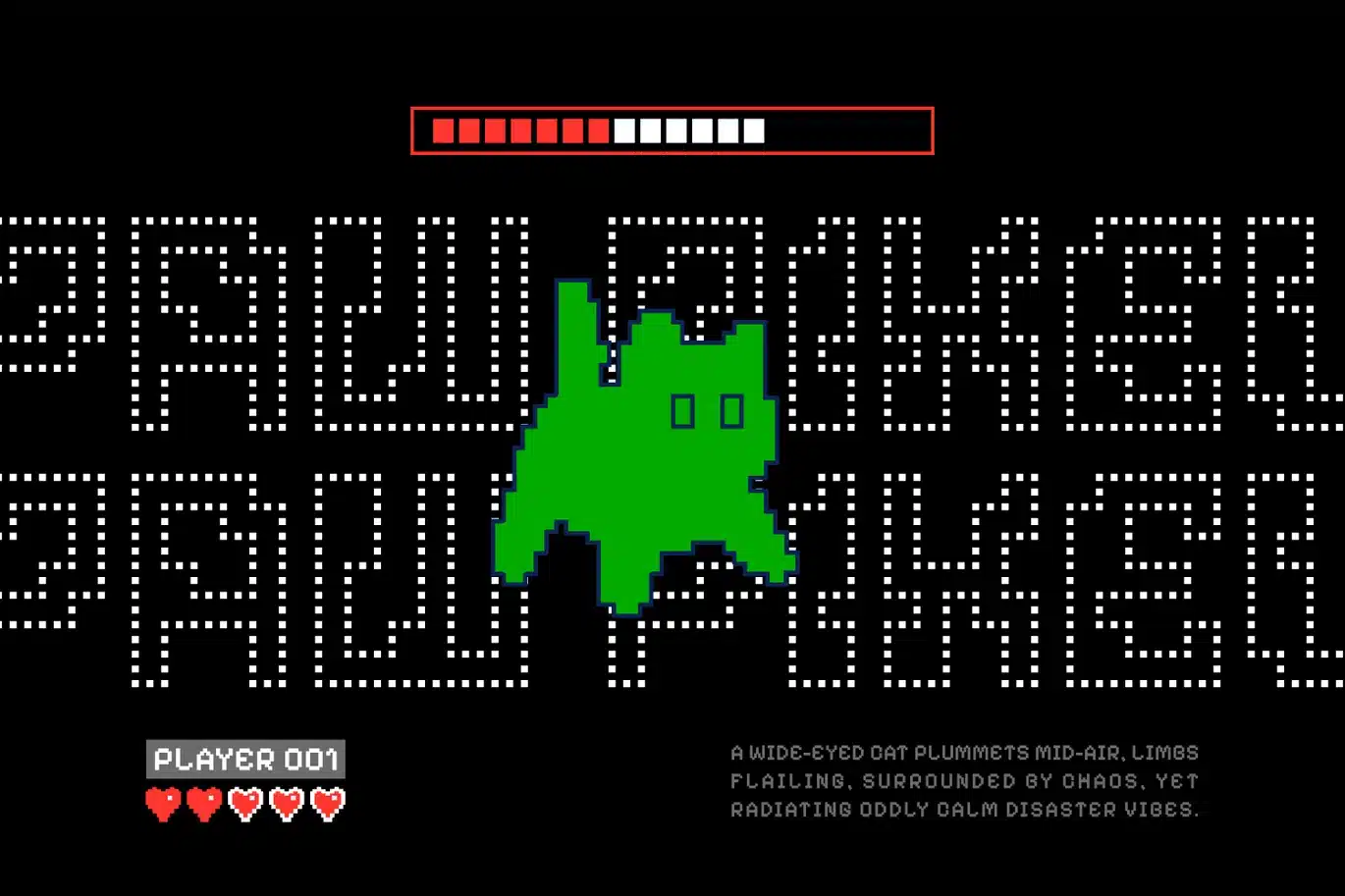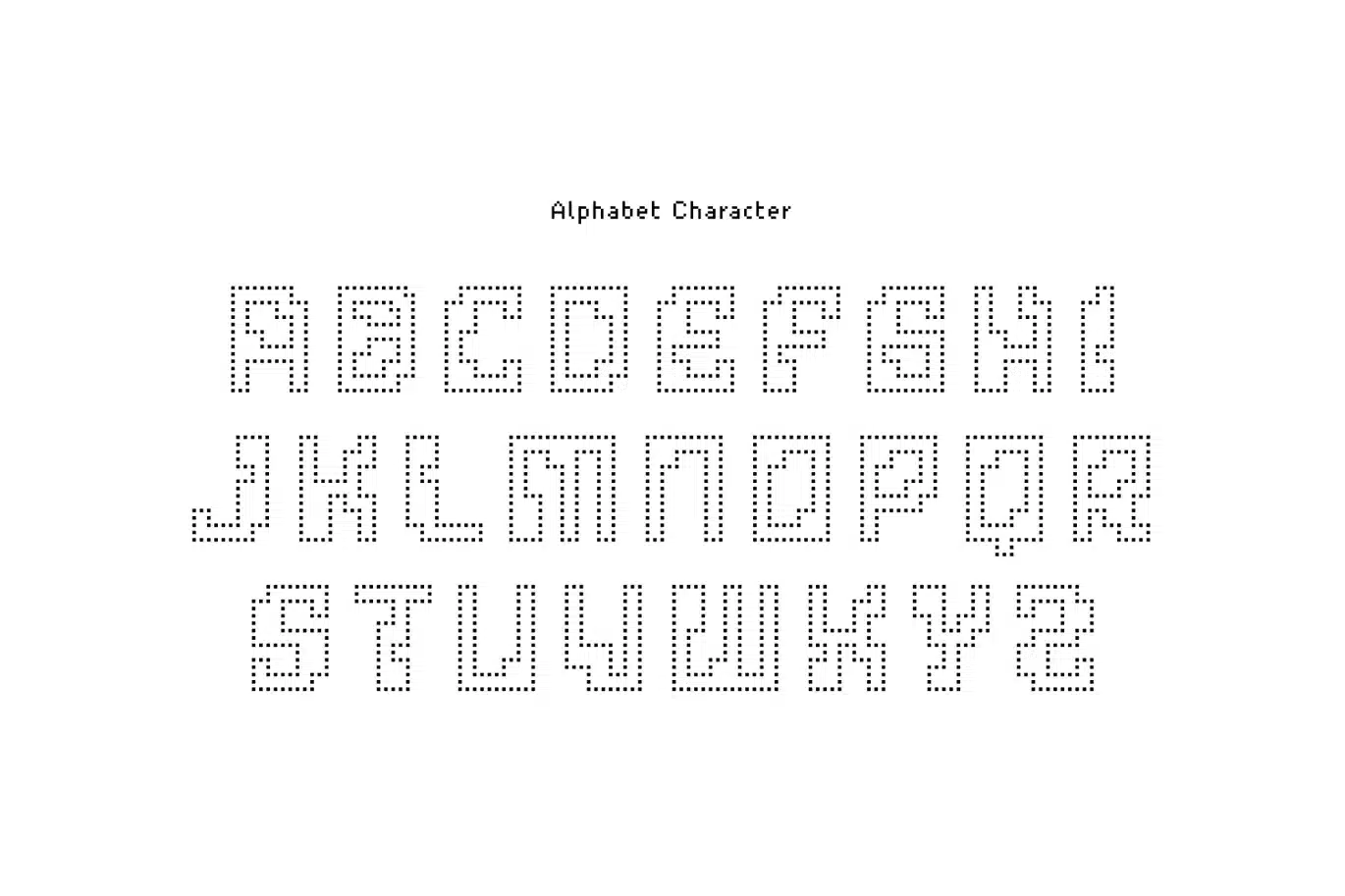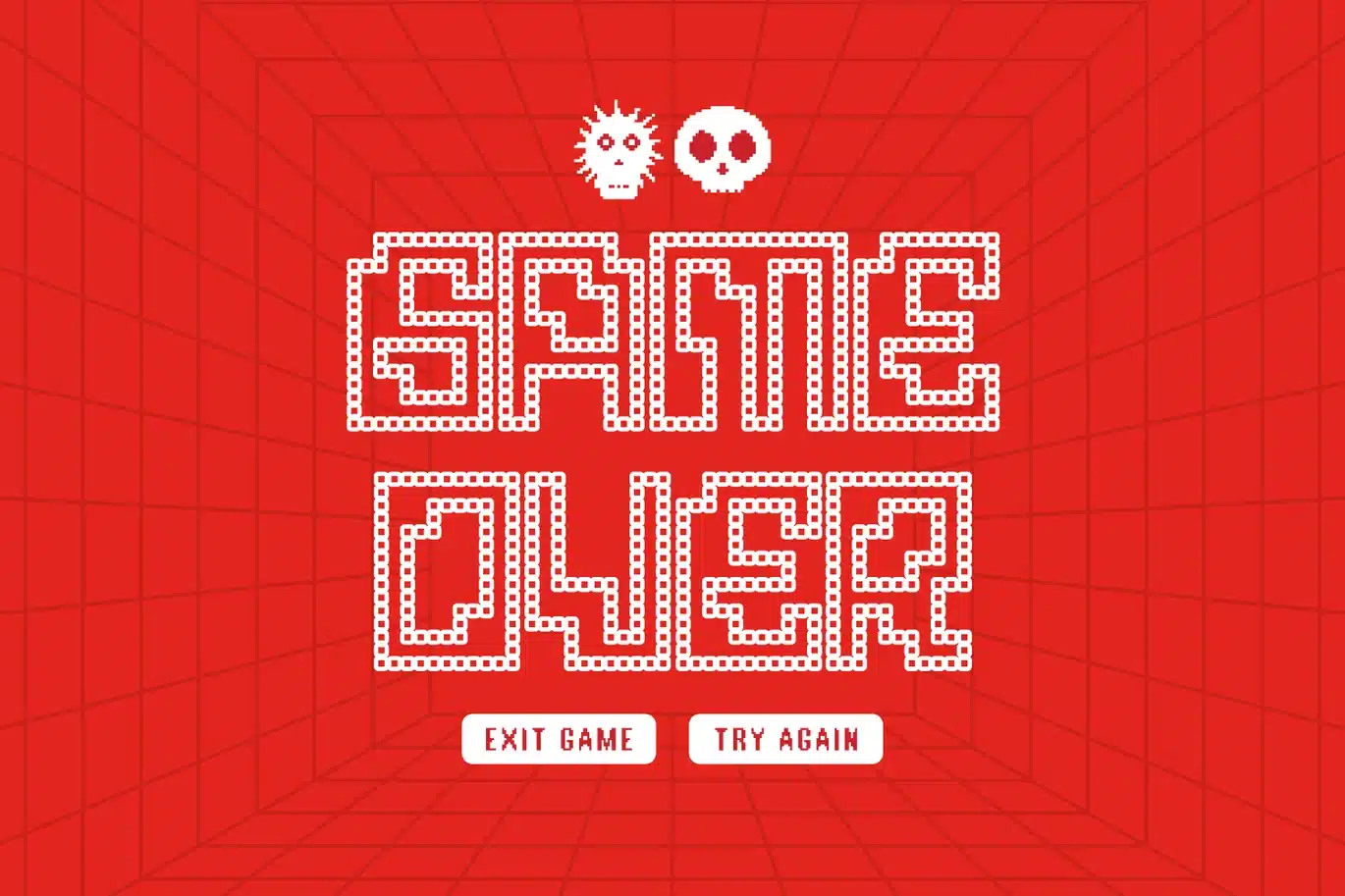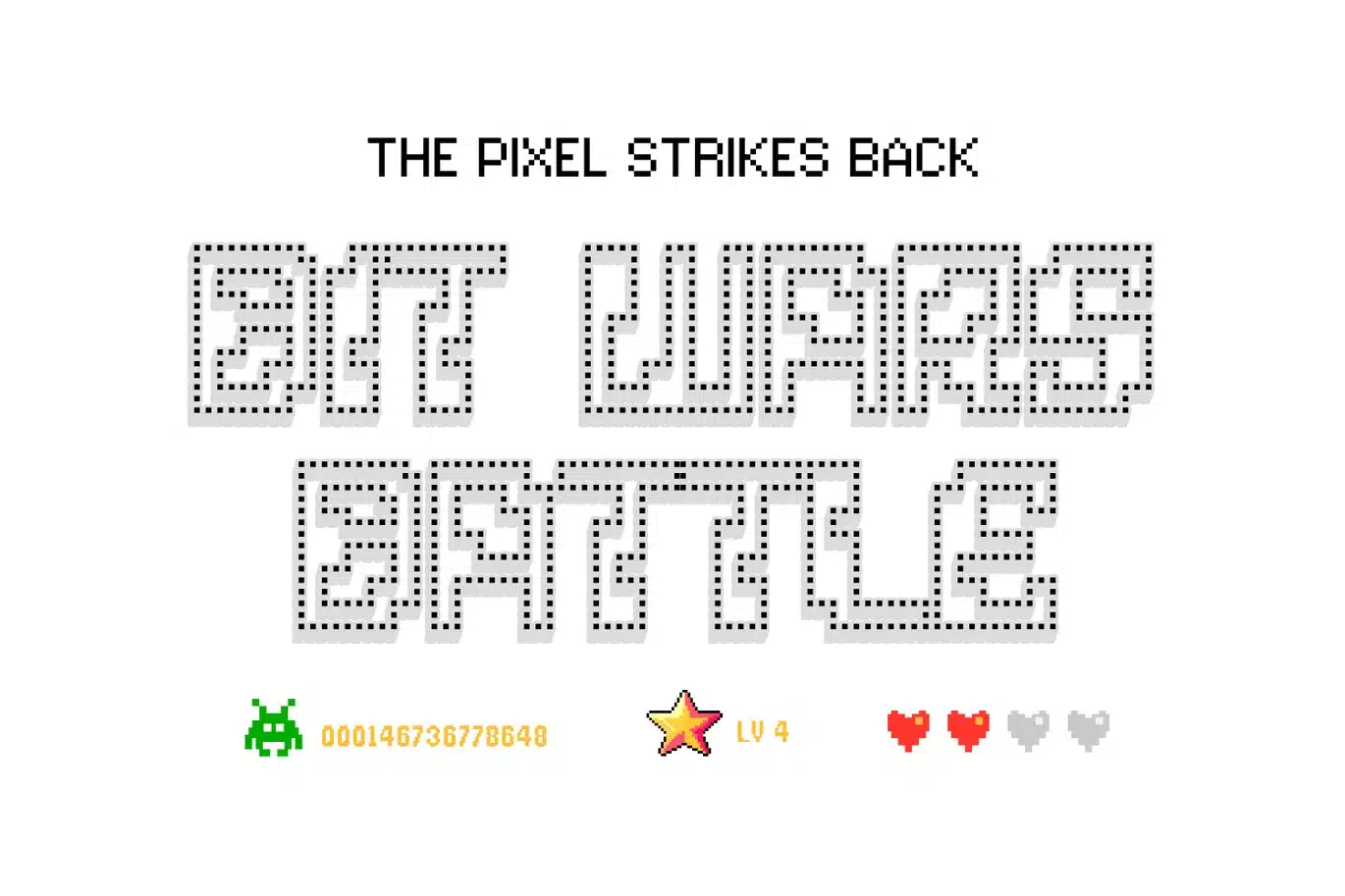
Pixel Jumper Font
Jumper is a pixel font designed with a sharp retro edge and a clean digital feel, bringing back the essence of classic arcade and early tech displays. Built with a structured bitmap style, this display font uses dotted pixel construction to create a distinctive and futuristic look. Inspired by Y2K visuals and old-school game interfaces, Jumper delivers a bold yet minimal aesthetic that works perfectly for modern creative needs.
Ideal for game titles, gaming graphics, tech branding, and coding-inspired visuals, Jumper offers a versatile solution for eye-catching display design. Its precise pixel rhythm makes it suitable for UI layouts, posters, and digital environments that require a strong and readable font. Whether you're crafting an arcade-inspired concept or a sleek tech project, Jumper brings a unique and engaging pixel font style to your work.